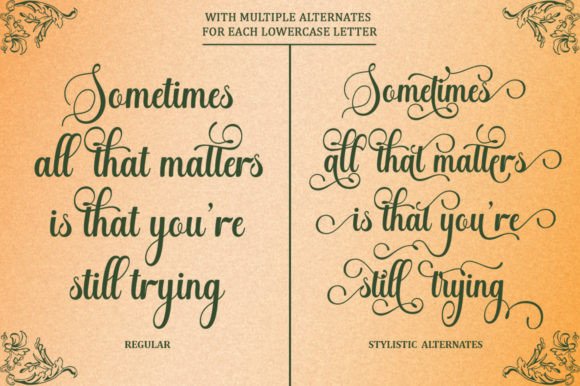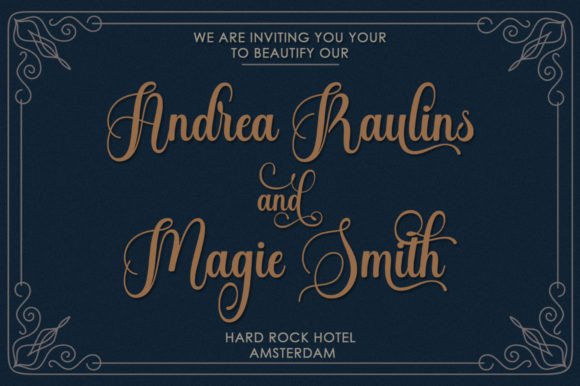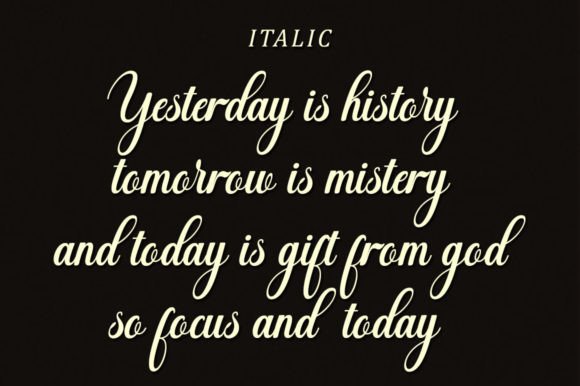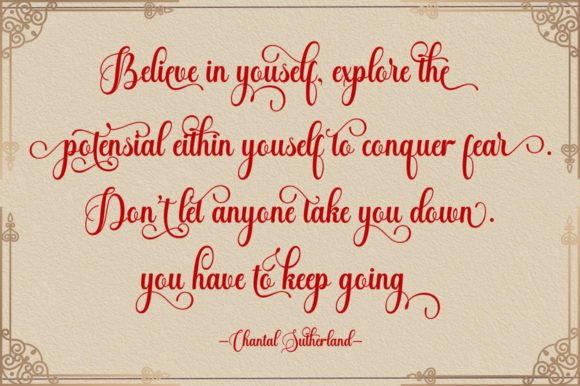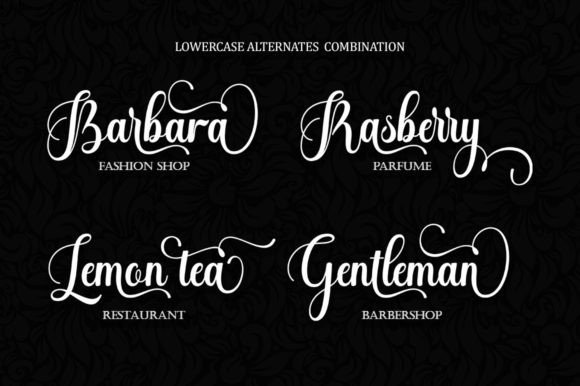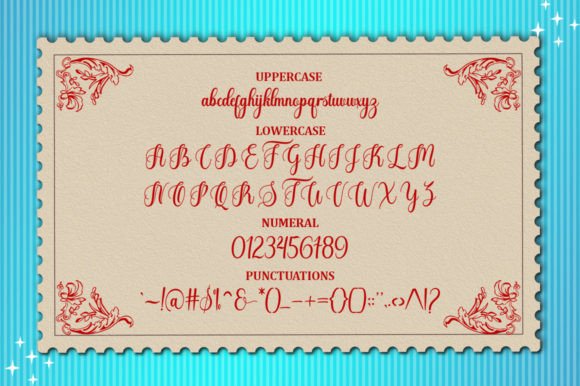
The Aestetic Font: A Timeless Calligraphy Script for Creative Projects
I’ll never forget the time I was working on a wedding invitation project, and my client asked for a font that was elegant, sophisticated, and feminine. I scoured the internet for hours, but nothing seemed quite right. That was until I stumbled upon the Aestetic font. With its smooth, clean lines and beautiful alternative characters, it was love at first sight! 💕
In this article, we’ll dive into the world of Aestetic, a stunning calligraphy script font that’s perfect for a wide range of creative projects. Whether you’re a designer, crafter, or hobbyist, you’ll learn how to make the most of this gorgeous font and explore its many uses.
An Honest Review of Aestetic
What I Love About Aestetic ✨
• ✅ Smooth, clean lines that exude elegance and sophistication
• 💃 Feminine and sensual, perfect for projects that require a touch of glamour
• 📚 Highly readable, even at small font sizes
• 🎨 Simple and versatile, suitable for a wide range of creative projects
• 👍 Classic style that’s perfect for formal items like invitations, labels, and wedding cards
• ⚠️ Some users may find the font a bit too ornate for very casual projects
• 🤔 Limited availability of certain characters or glyphs in certain software
4. Experiment with OpenType features like stylistic alternates and glyphs to add visual interest
4. Explore OpenType features like ligatures and stylistic sets to add depth and texture to your design
Aestetic was designed with the intention of creating a timeless, elegant script font that would be perfect for a wide range of creative projects. The designer, inspired by the beauty of calligraphy, aimed to create a font that was both sophisticated and feminine. With its smooth lines and beautiful alternative characters, Aestetic has become a favorite among designers and crafters alike.
Q: What type of projects is Aestetic best suited for?
A: Aestetic is perfect for formal projects like invitations, labels, wedding cards, and stationery, as well as creative projects like branding, advertising, and packaging.
Q: Is Aestetic available in different font weights?
A: Yes, Aestetic comes in a range of font weights, from light to bold, making it versatile for different design applications.